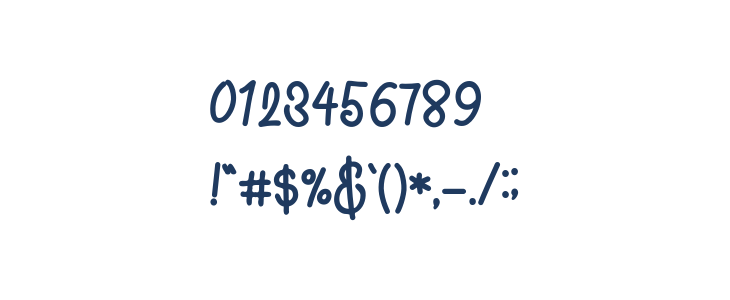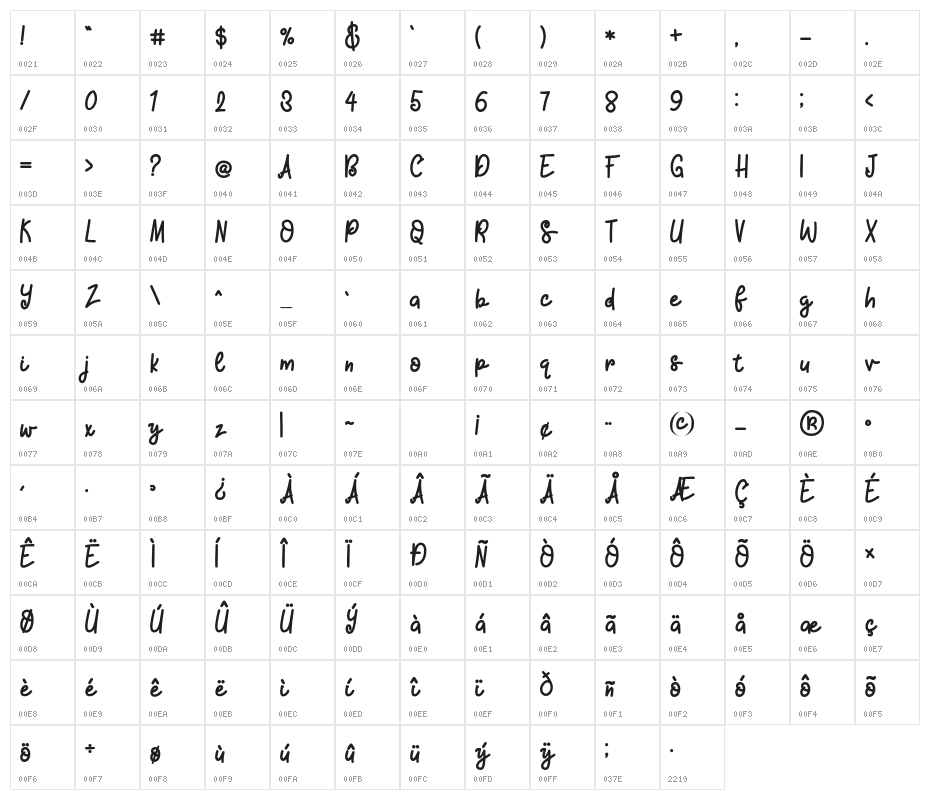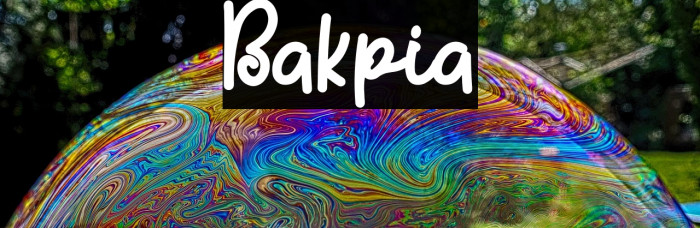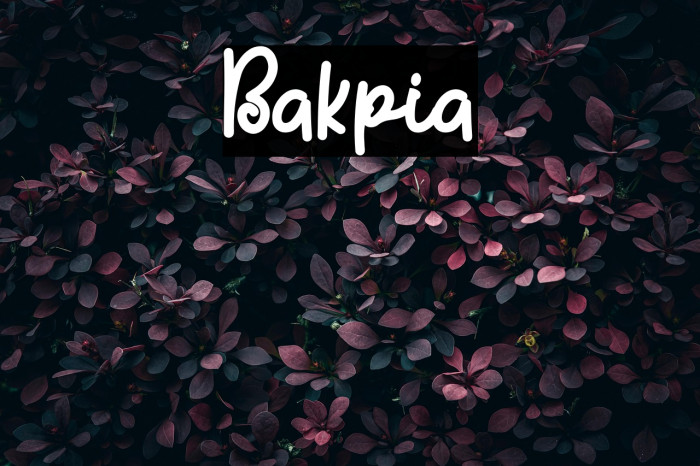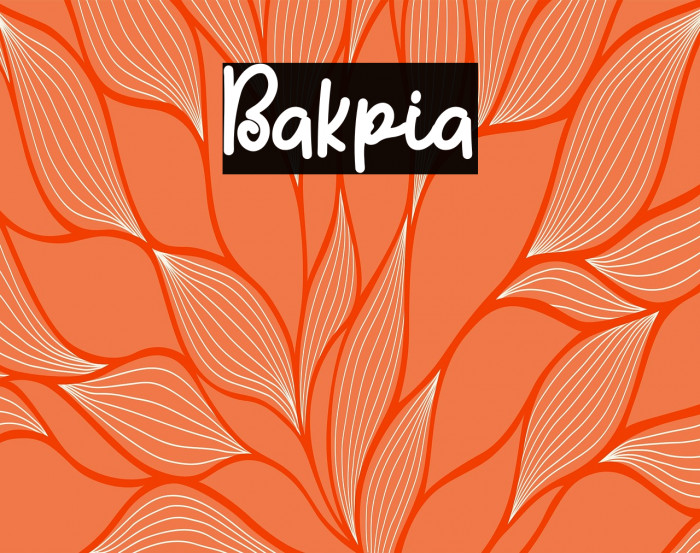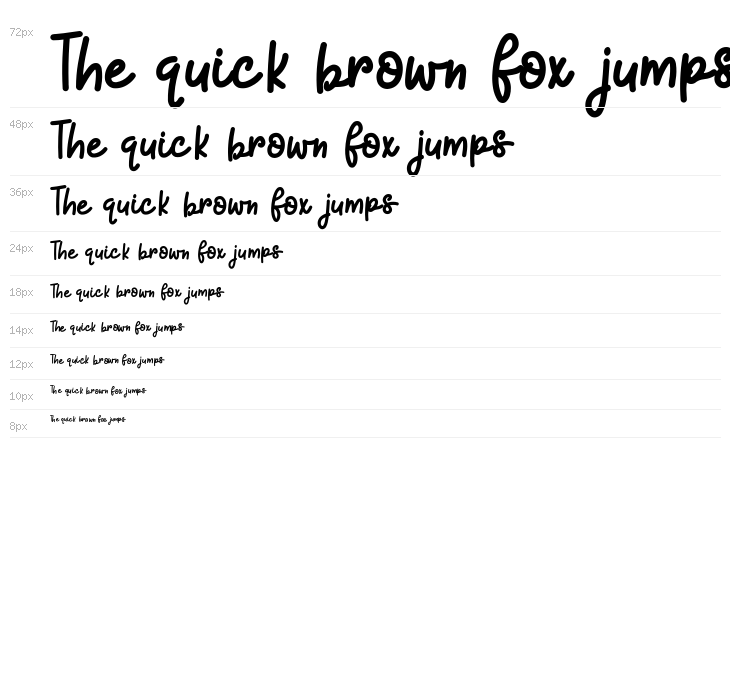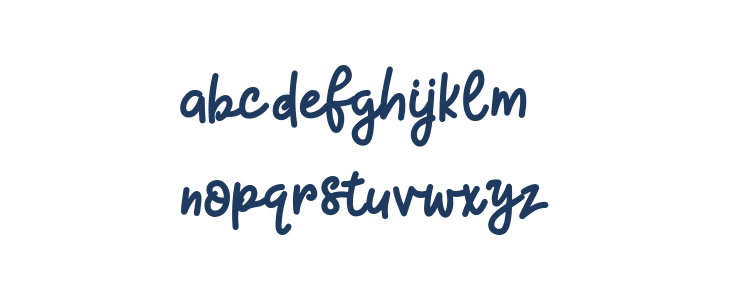
Bakpia Font
Bakpia Description
This playful and energetic font features a handwritten style with a casual, friendly appearance. The letters are bold and rounded, with a slight slant that adds to its informal charm. The strokes are consistent in thickness, giving it a uniform look while maintaining a lively feel. The uppercase and lowercase letters are well-balanced, and the numbers and special characters complement the overall style. This font is perfect for projects that require a personal touch, such as greeting cards, invitations, or social media graphics.
Overall StyleCasual, Playful
Use CaseHeadlines, Logos, Invitations
Proposed ProjectsIdeal for greeting cards, invitations, social media graphics, and personal branding.